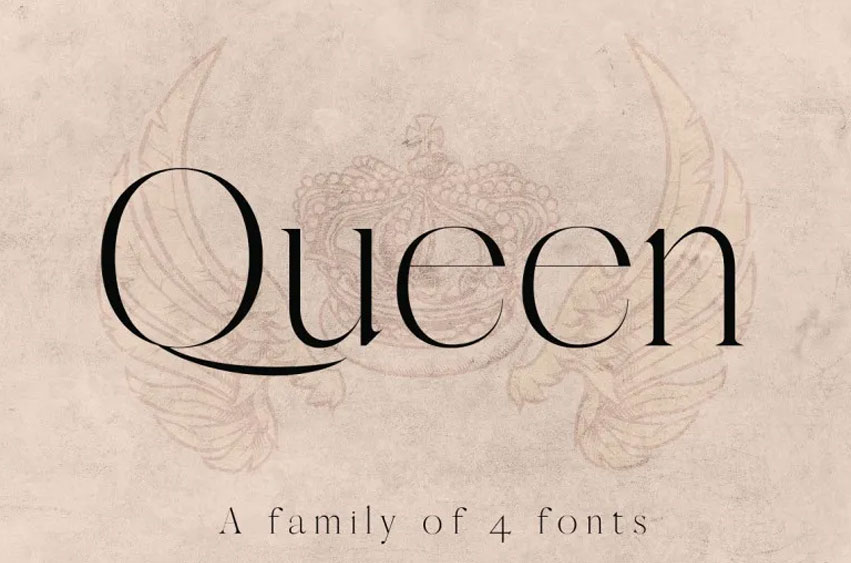
Queen Font
Queen Font is a versatile serif font designed with modern elegance in mind, suitable for creating mastheads, wordmarks, pull quotes and monograms with masculine or feminine qualities.
Available in regular weight, semi bold bold and black.